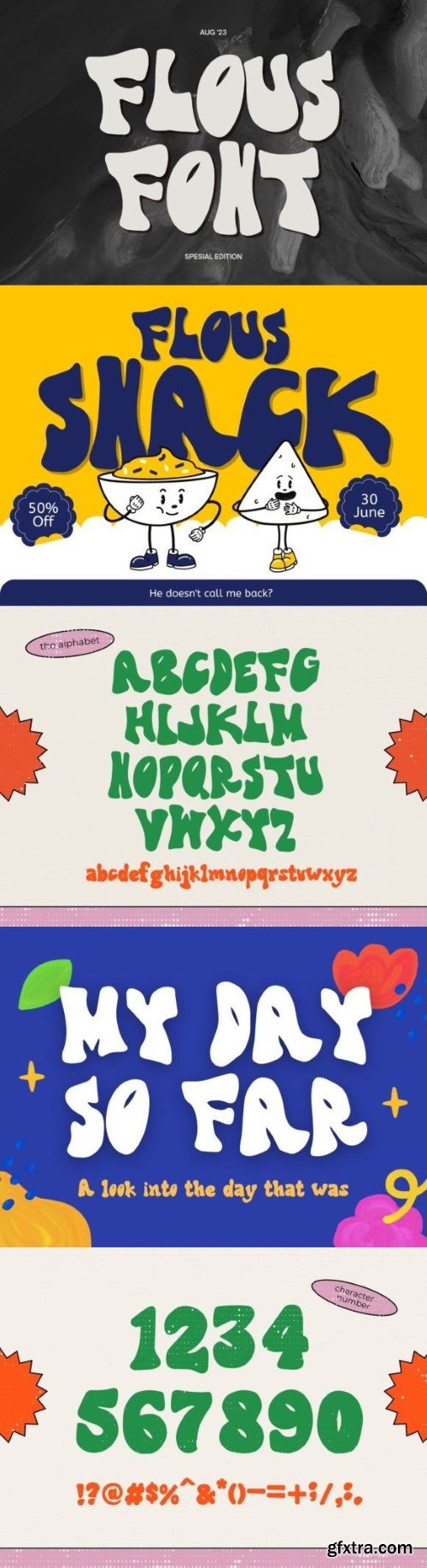
浮素Font
Flousis a bulky and fun display font that is bold, impactful, and impossible to ignore. With thick, powerful strokes and striking letterforms, it demands attention and makes a statement. Whether used for headlines, posters, or branding, it conveys strength, confidence, and a sense of modernity.